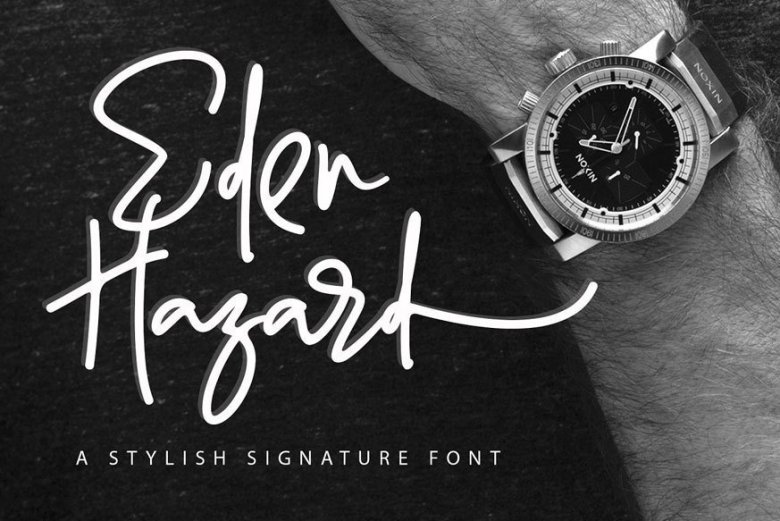
Eden Hazard Font
Eden Hazard is a font with stylish and classy taste, comes with special opentype features such as ligatures, titling, and swash. We keep this font looks classy, readable, elegant, stylish, catchy and absolutly easy to use.